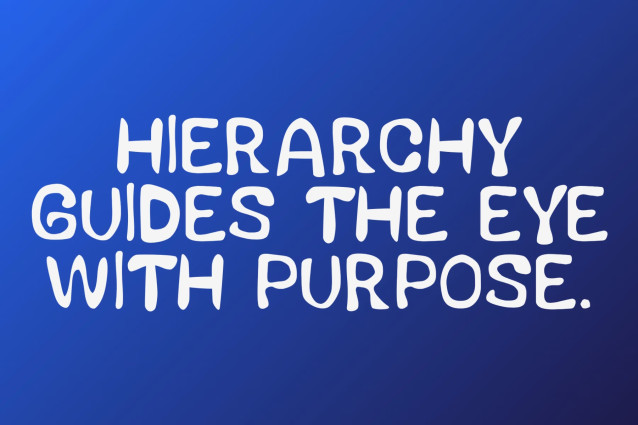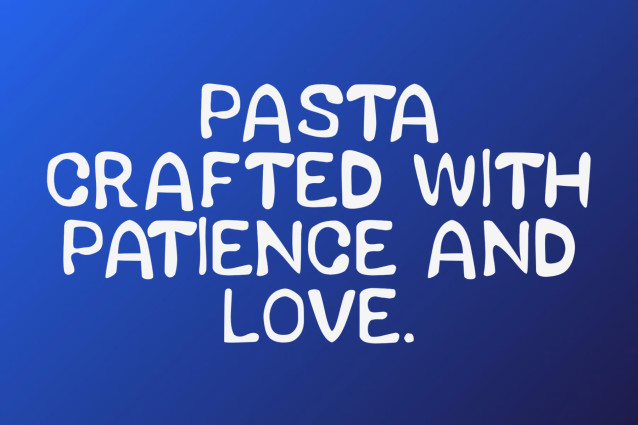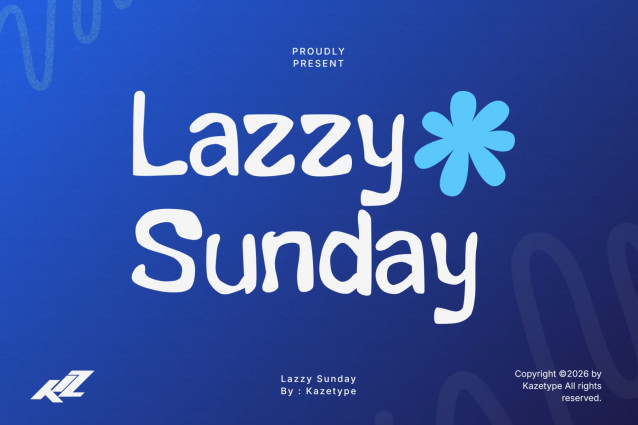
Lazzy Sunday Font
Lazzy Sunday – Playful & Quirky Display Font
Bring a relaxed, fun, and organic vibe to your designs with Lazzy Sunday!
Looking for a font that delivers a casual, cheerful, and effortless feel to your visual projects? Meet Lazzy Sunday.
True to its name, Lazzy Sunday is a hand-drawn display font with a unique and playful personality. Designed with dynamic organic curves and an asymmetrical, bouncy baseline, this font breaks rigid typographic rules to add a personal, warm, and friendly touch to any design. Its bubbly and slightly wavy characteristics make it incredibly eye-catching and full of life.
Whether you’re working on a lighthearted project or want to inject some fun into a professional design, Lazzy Sunday is the perfect choice for creators who want their typography to stand out.
• Uppercase & Lowercase: A fully complementary set of upper and lower case characters that flow together with a dynamic rhythm.
• Numerals: Hand-crafted numbers (0-9) that seamlessly match the font’s organic style.
• Punctuation & Symbols: A comprehensive set of punctuation marks to support your typographic hierarchy and sentence structure.